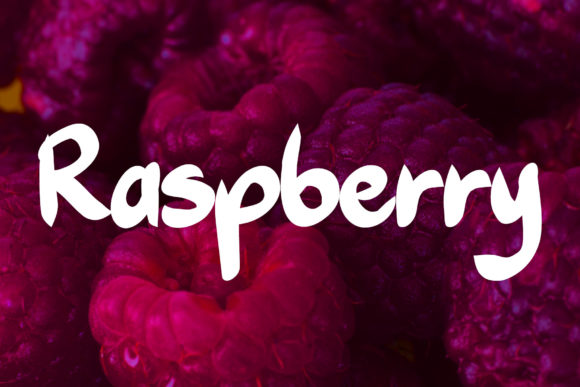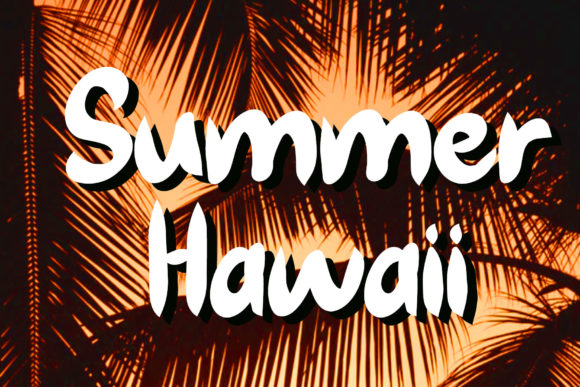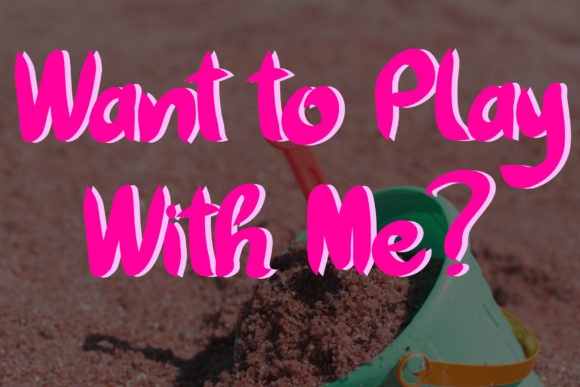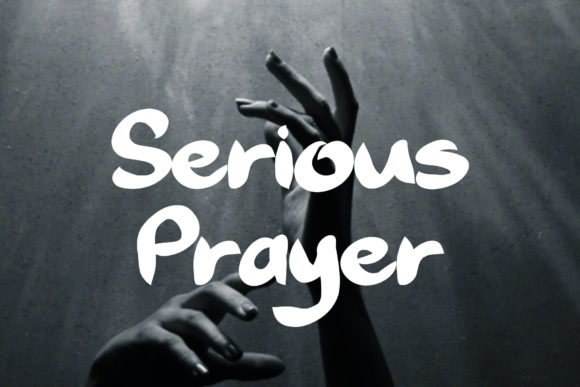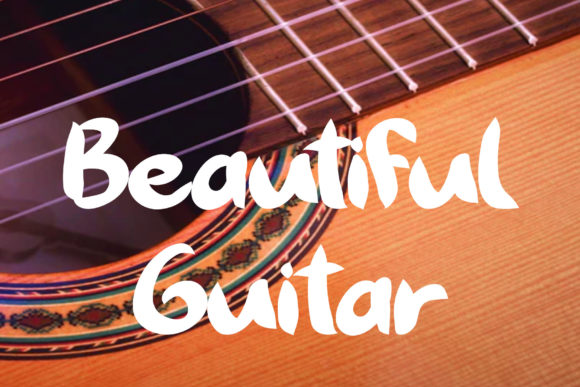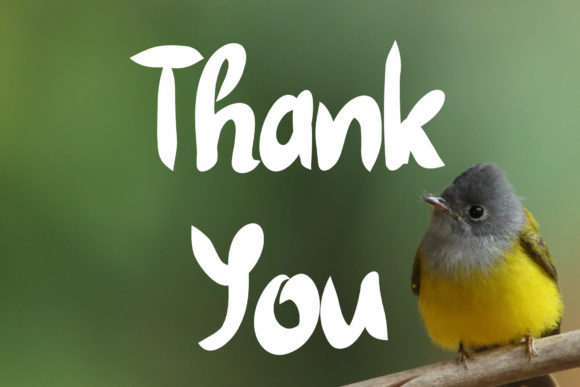
Gnome Witch Font: A Trendy and Versatile Display Font for Your Creative Projects
Are you a designer or crafter looking for a unique and eye-catching font to elevate your creative projects? Look no further than the Gnome Witch Font, a trendy and paint-brushed display font that’s perfect for adding a touch of magic to your designs. In this article, we’ll explore the features and benefits of the Gnome Witch Font, and why it’s a wonderful asset to your font library.
What is Gnome Witch Font?
Gnome Witch Font is a display font that’s designed to add a touch of whimsy and charm to your designs. With its paint-brushed texture and irregular strokes, this font has a unique and handcrafted feel that’s perfect for creating eye-catching headlines, titles, and captions. Whether you’re working on a graphic design project, crafting a logo, or creating social media graphics, the Gnome Witch Font is sure to make your designs stand out.
Key Features of Gnome Witch Font
So, what makes the Gnome Witch Font so special? Here are some of its key features:
- Trendy and modern design: The Gnome Witch Font has a fresh and contemporary design that’s perfect for creating modern and stylish graphics.
- Paint-brushed texture: The font’s paint-brushed texture gives it a unique and handcrafted feel that’s perfect for adding a touch of whimsy to your designs.
- Irregular strokes: The font’s irregular strokes add to its charm and character, making it perfect for creating eye-catching headlines and titles.
- High-quality design: The Gnome Witch Font is designed with high-quality and precision, ensuring that it looks great in any size or resolution.
Why You Need Gnome Witch Font in Your Font Library
So, why should you add the Gnome Witch Font to your font library? Here are some reasons:
- Versatility: The Gnome Witch Font is versatile and can be used for a wide range of design projects, from graphic design and branding to crafting and DIY projects.
- Unique style: The Gnome Witch Font has a unique and distinctive style that’s sure to make your designs stand out from the crowd.
How to Use Gnome Witch Font
Using the Gnome Witch Font is easy and straightforward. Here are some tips:
- Pair it with other fonts: The Gnome Witch Font can be paired with other fonts to create a unique and eye-catching combination.
- Use it for headlines and titles: The font is perfect for creating eye-catching headlines and titles that grab attention.
- Experiment with colors and textures: The Gnome Witch Font can be used with a range of colors and textures to create a unique and stylish design.
| Font Name | Gnome Witch Font |
| Author | Ansart |
In conclusion, the Gnome Witch Font is a trendy and versatile display font that’s perfect for designers and crafters looking to add a touch of magic to their creative projects. With its unique and handcrafted feel, this font is sure to make your designs stand out from the crowd. Whether you’re working on a graphic design project, crafting a logo, or creating social media graphics, the Gnome Witch Font is a wonderful asset to your font library.